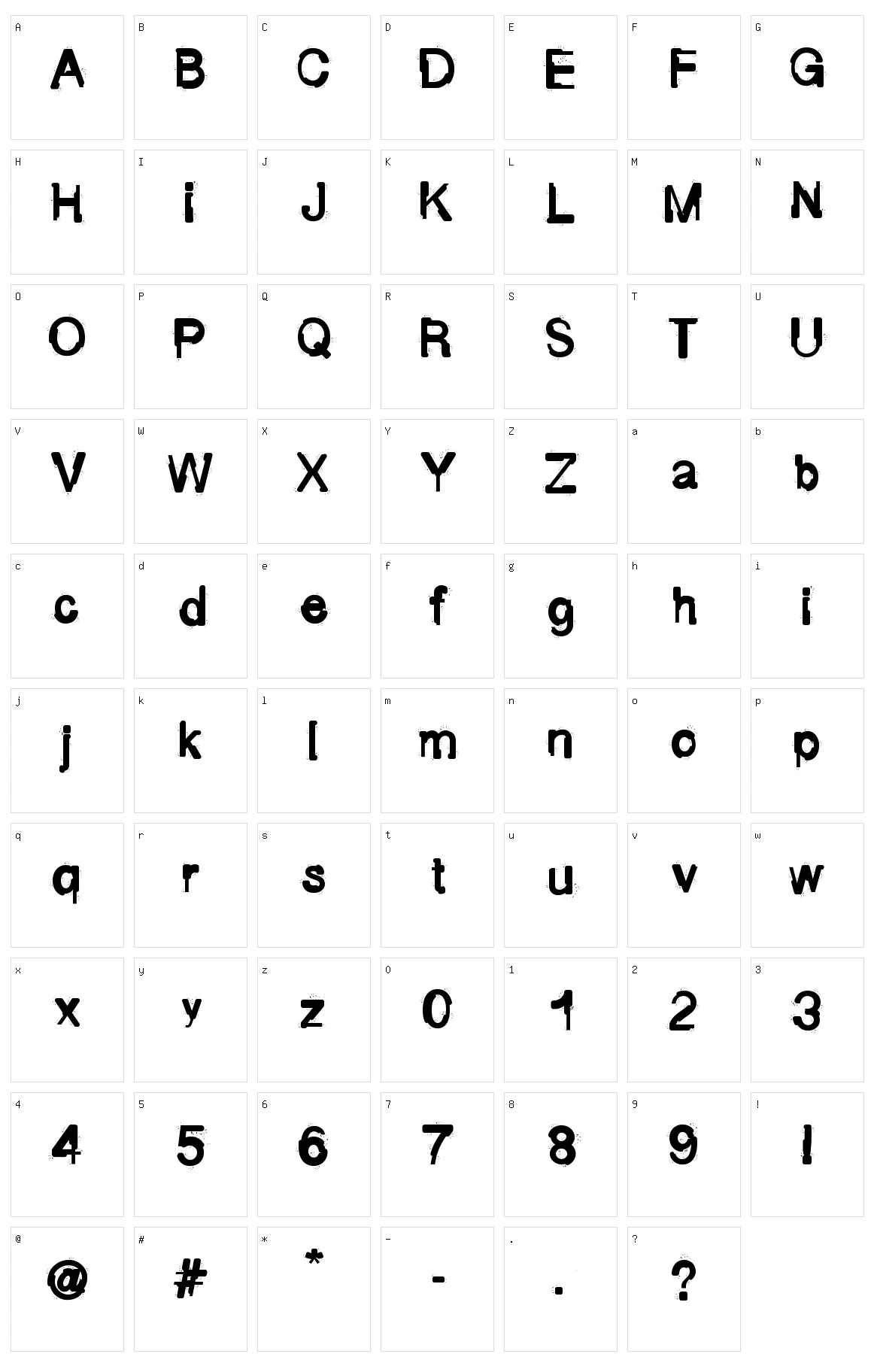
The free font Fluid Maska is carefully designed by Qkila, showcasing a thoughtful balance of creativity and usability and falls under the Eroded font style. When you download the ZIP file, it contains only 96.51 KB of font files, making it lightweight and quick to download. Please review the license details below to understand permitted usage and distribution rights. If license information is not available, we recommend using this font for personal projects only or contacting the author directly for commercial usage permissions.